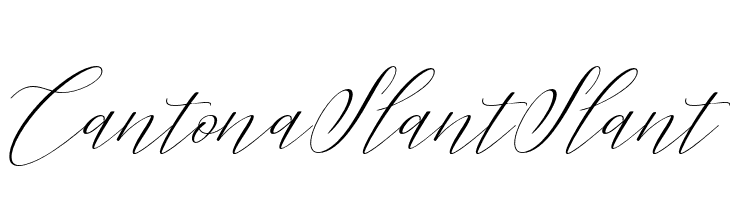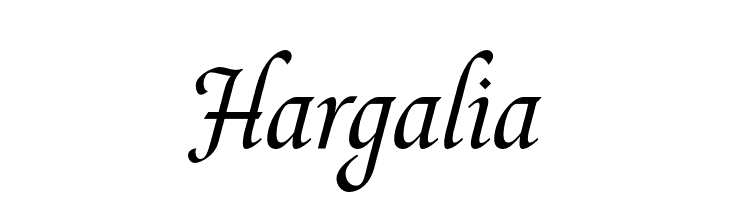
An elegant script font with flowing, cursive lines and a classic aesthetic.
A graceful and elegant script font with flowing, cursive letters.
A graceful script font with elegant, flowing calligraphic strokes.
An elegant, flowing script font with graceful curves and a classic charm.
An elegant script font with flowing, cursive style and intricate flourishes.
An elegant script font with flowing, cursive letters and a classic style.
A sophisticated, slanted script font with high contrast and flowing, connected characters.
An elegant script font with flowing, cursive letters and a sophisticated appearance.
A fluid and elegant script font with connected cursive strokes.
An elegant and sophisticated cursive font with flowing, ornate letters.